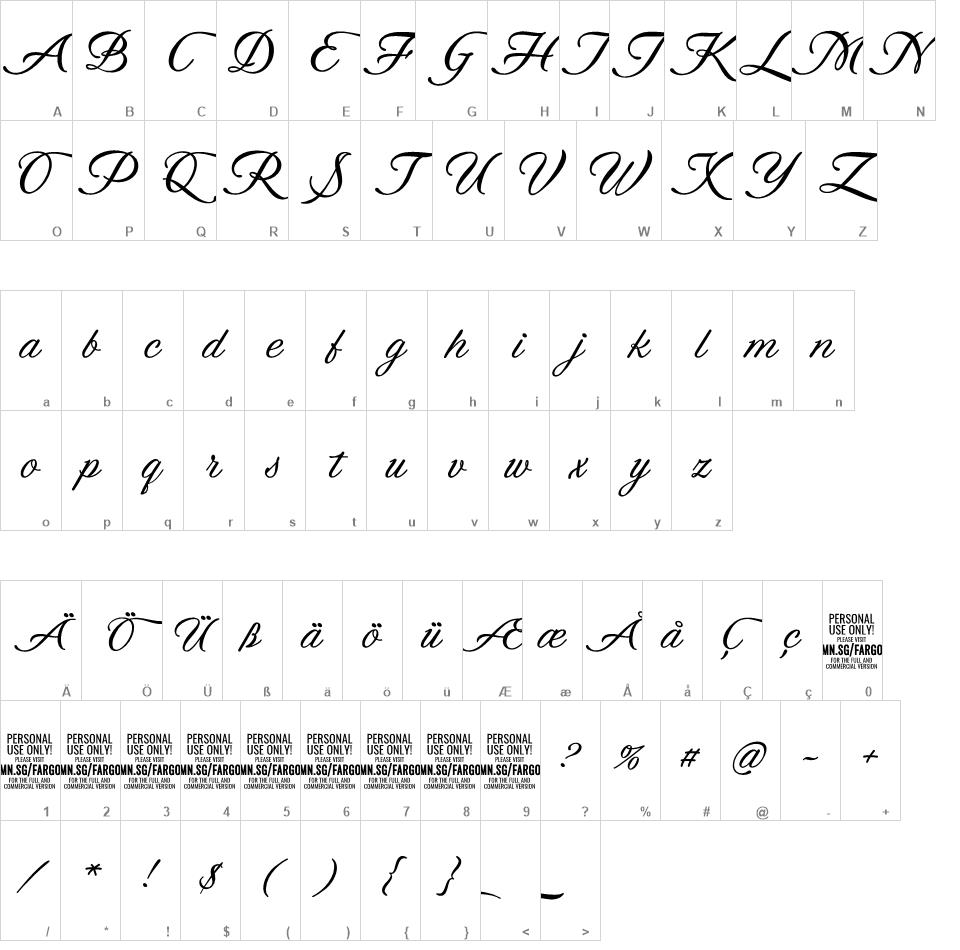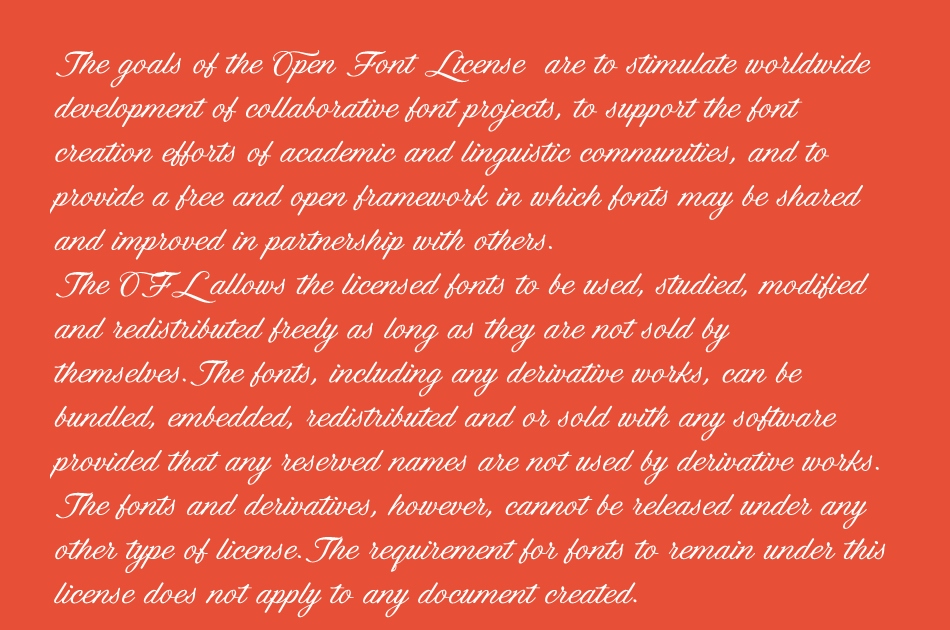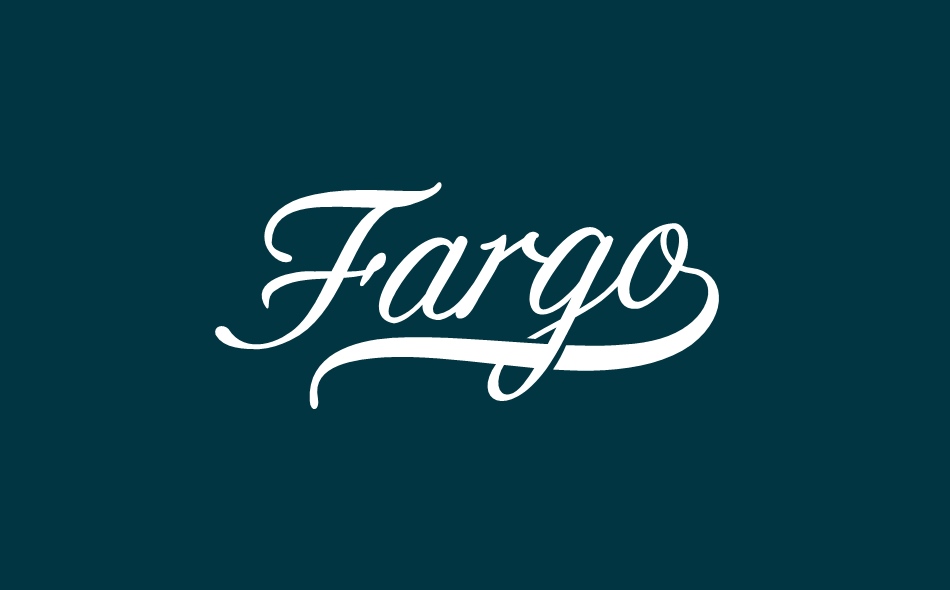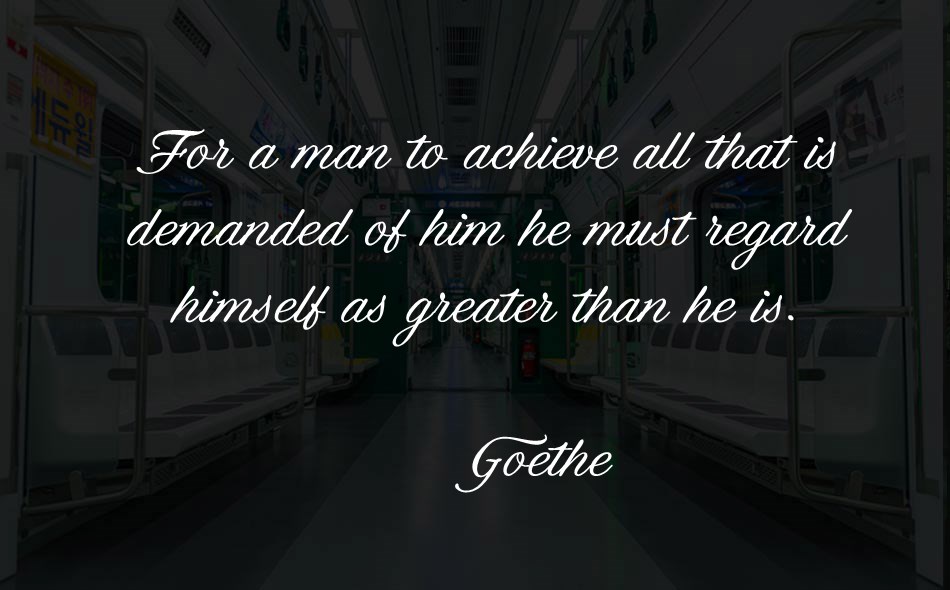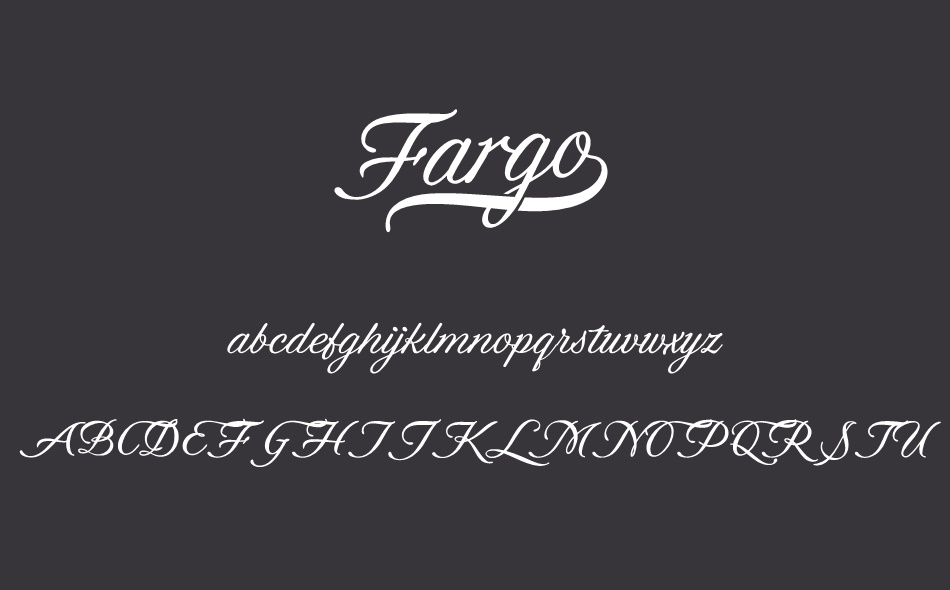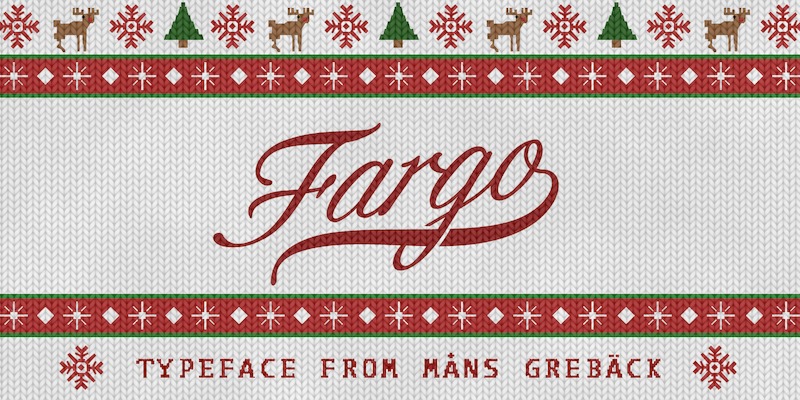
Fargo font
Use [ ] < > after any word to create a swash.
Example: Snow]
For a longer swash, use several characters: Decorative>>>>
Fargo is a decorative logotype font. Drawn and created by Mans Greback in 2020, this vintage sport lettering works has velocity, style and class.
Use [ ] < > after any word to create a swash. Example: Snow] For a longer swash, use several characters: Decorative>>>>
The typeface is provided in four styles: Regular, Italic, Bold and Bold Italic.
Each style contains an alternate alphabet and ligatures, giving the calligraphy true customized possibilities.
The font has extensive lingual support, covering all European Latin scripts. It contains all characters you'll ever need, including all punctuation and numbers.